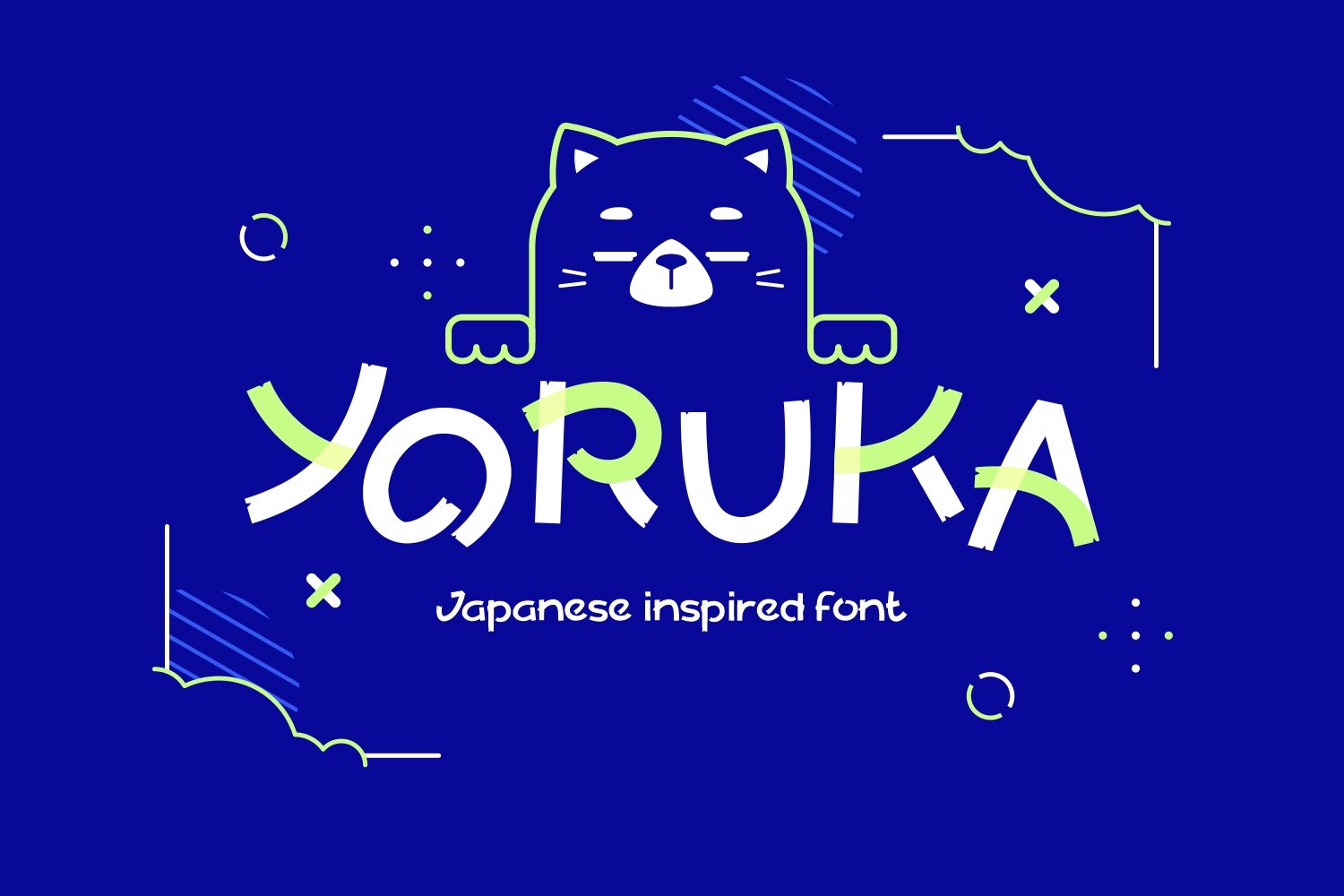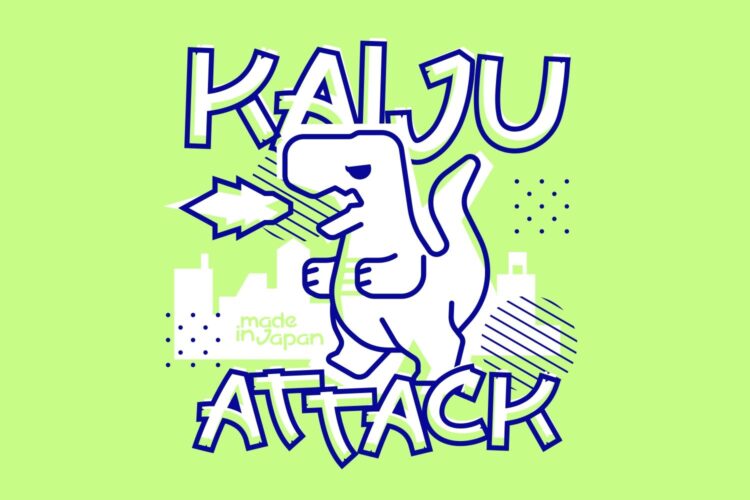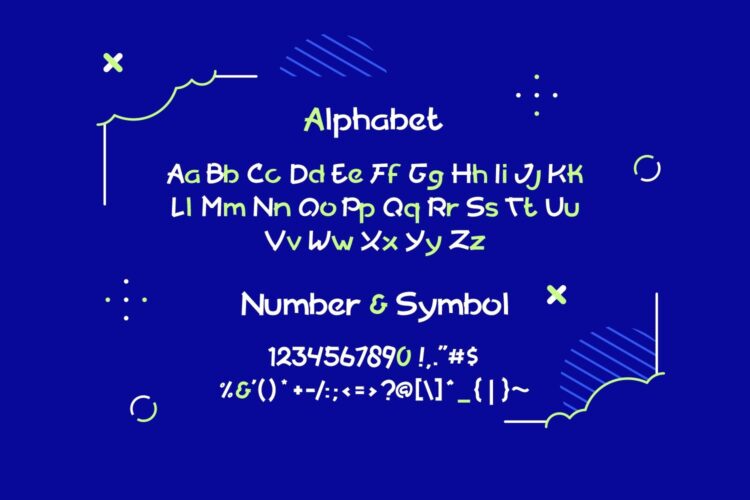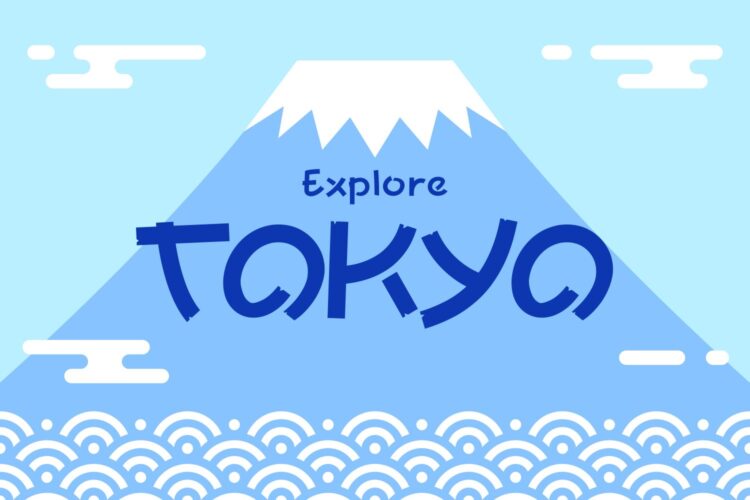
Yoruka is inspired by joyfull of Japan. Perfect for adding an authentic touch to your projects such as Logo, Poster, T-shirt, Movie, Game title and many more!